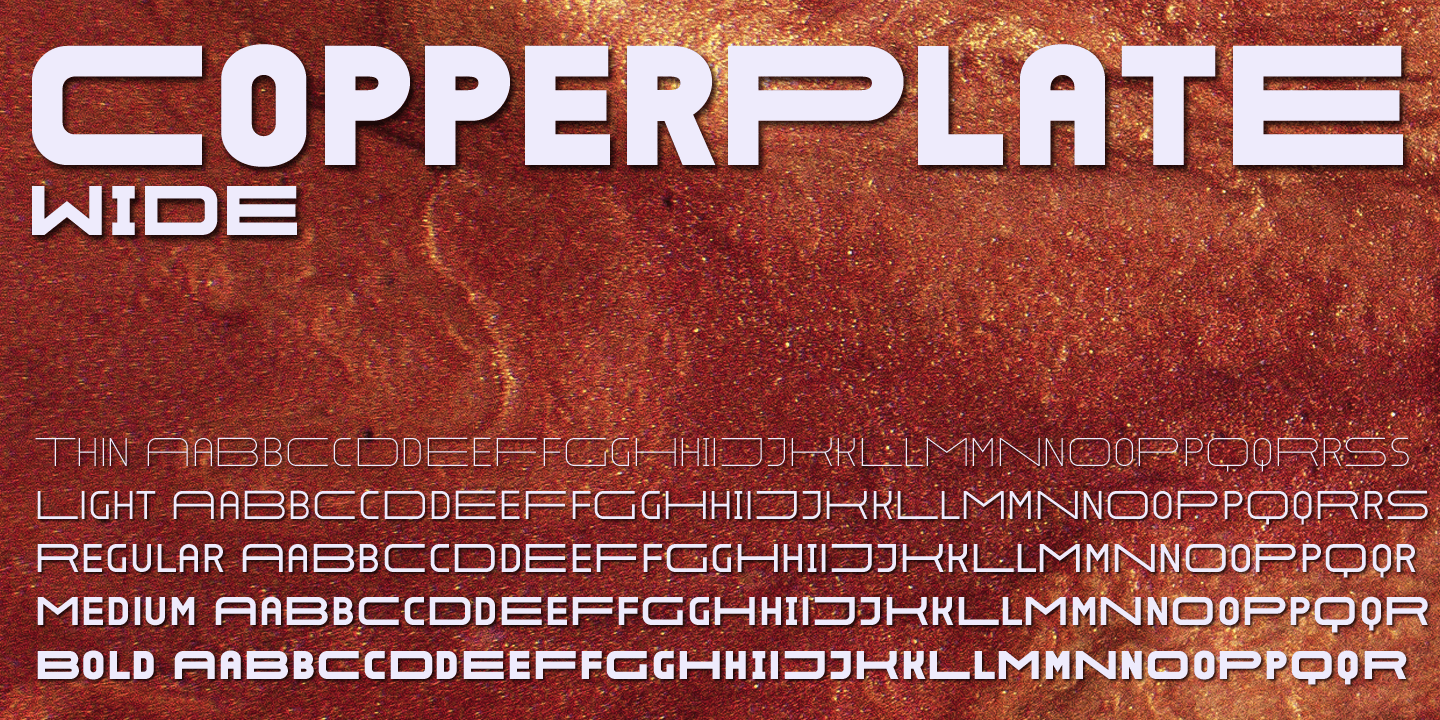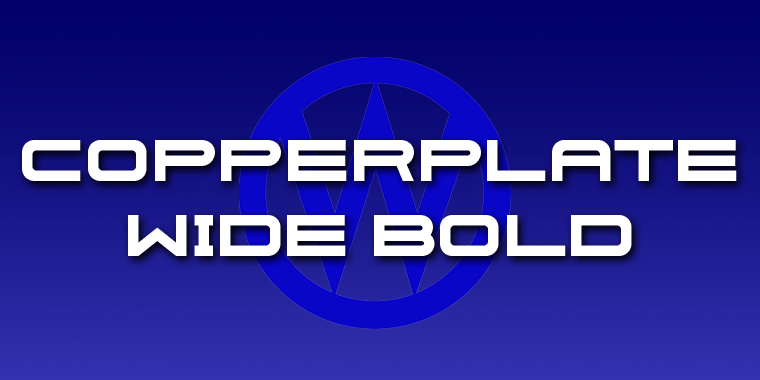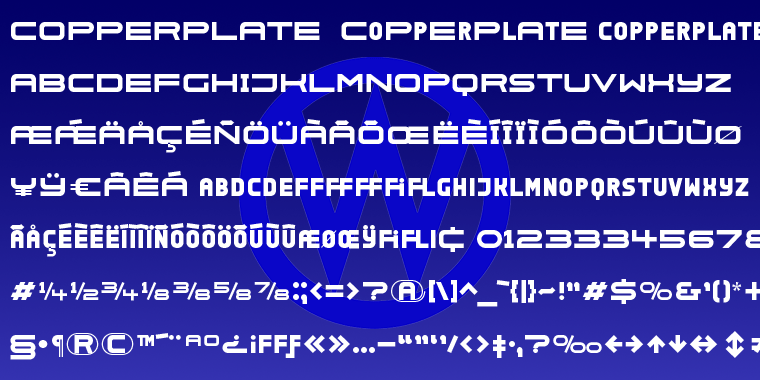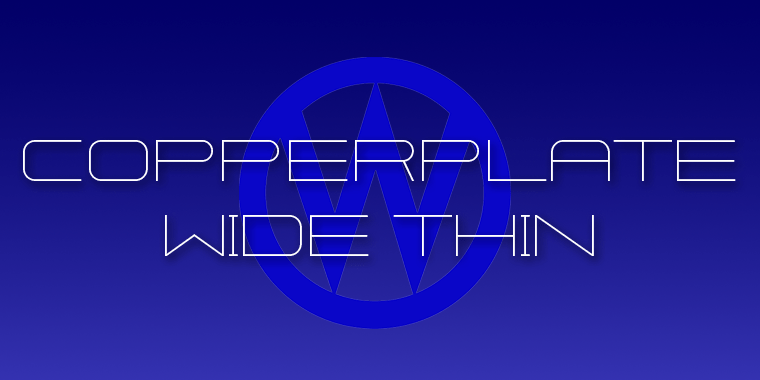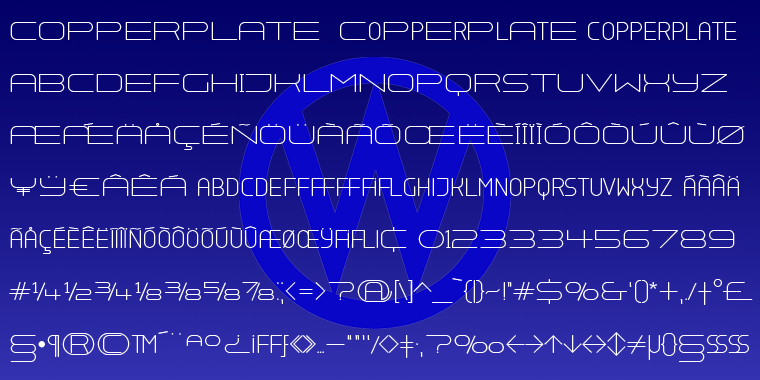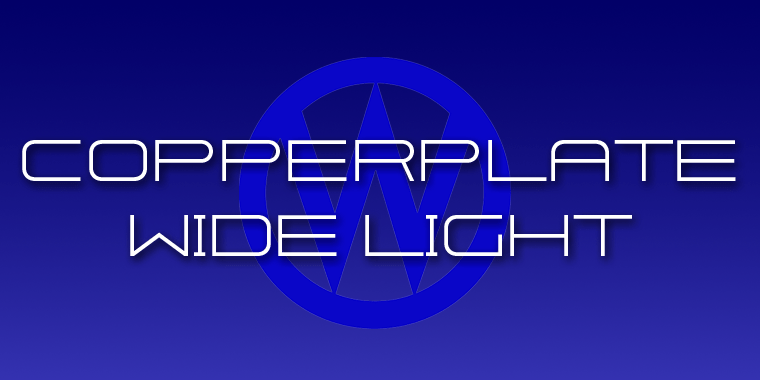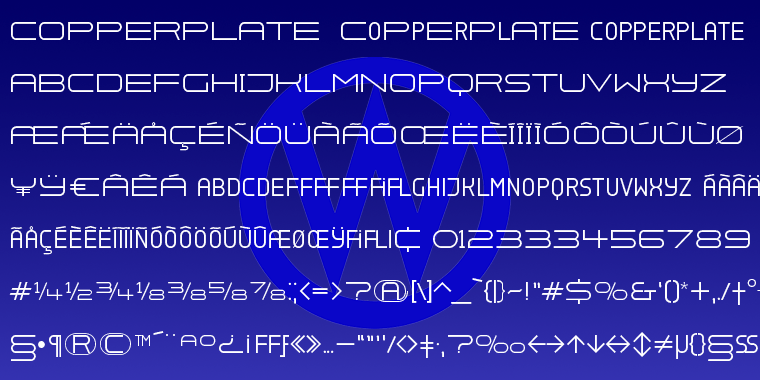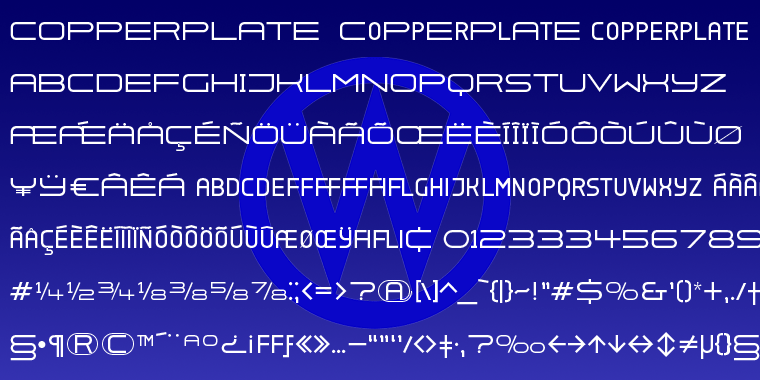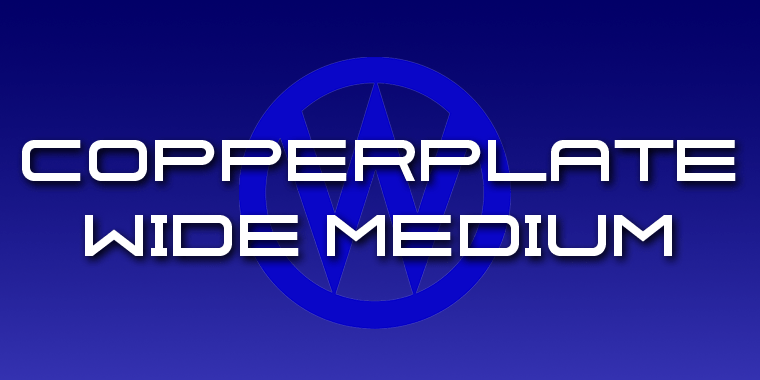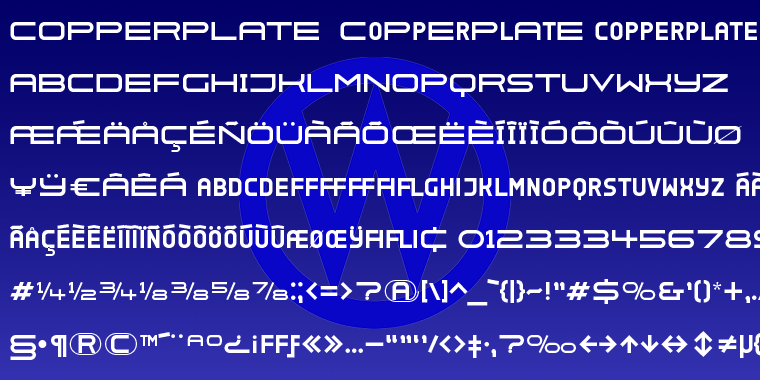
Copperplate Wide
Font Family by Wiescher Design
Copperplate Wide is remotely based on the traditional Copperplate typeface that can be seen on many business cards. I have completely redrawn the typeface in a much wider version and without those stubby little serifs. In the place of the lowercase letters I put a very slim version of the font to give you more options. You can either use the wide letters or the narrow ones ? or ? you can mix both to get something completely new. It works great!